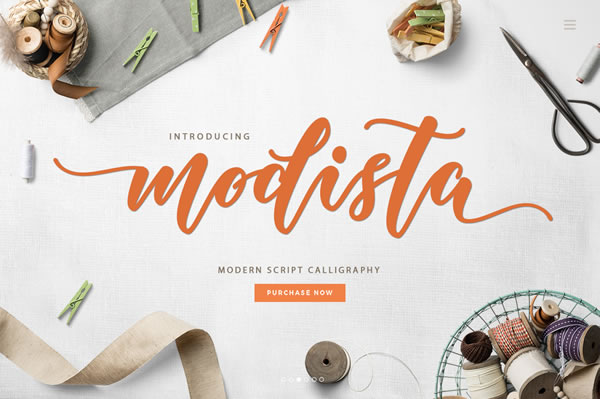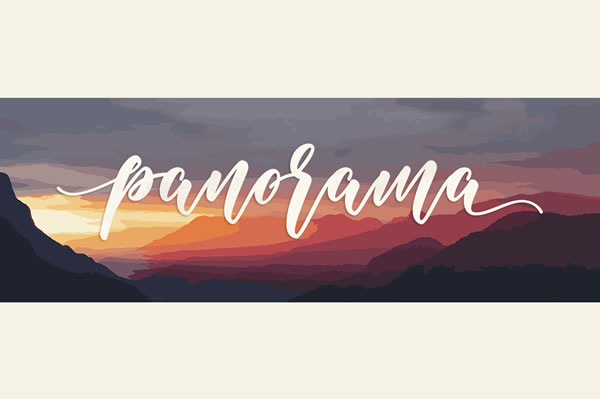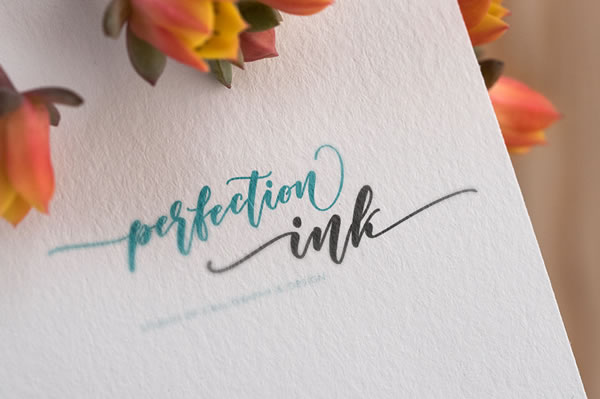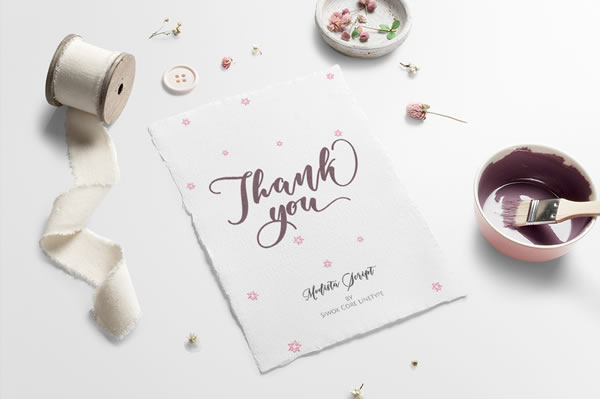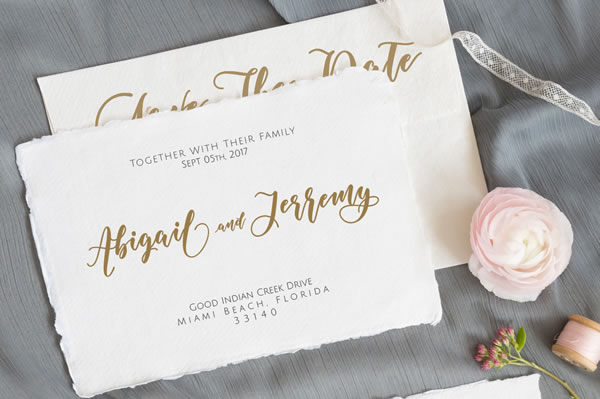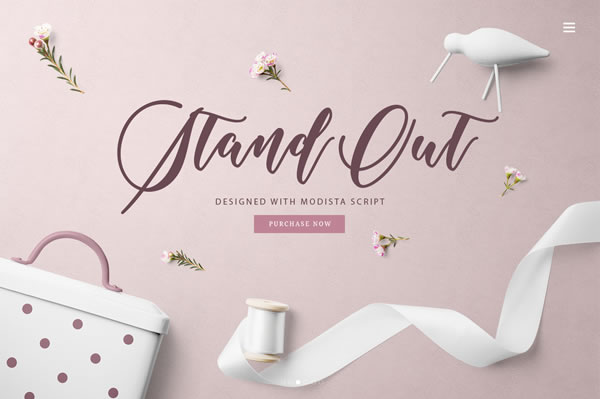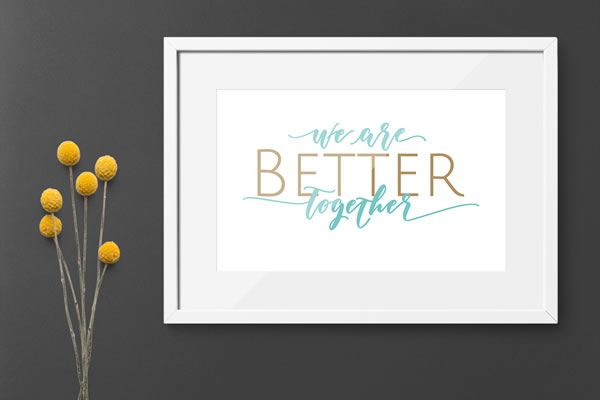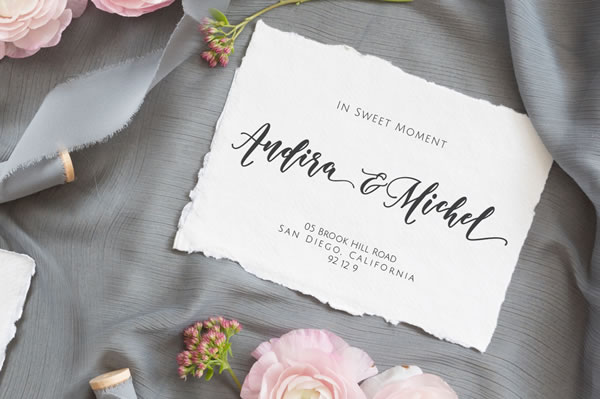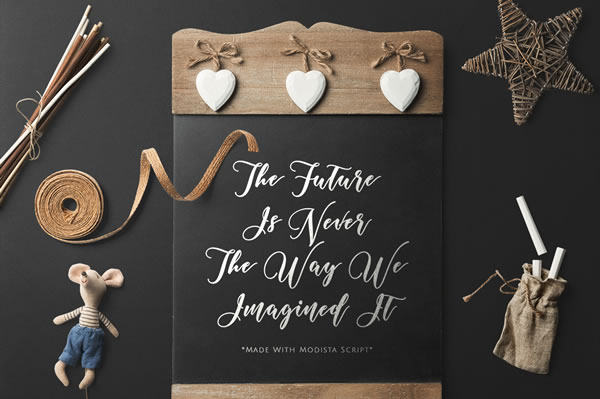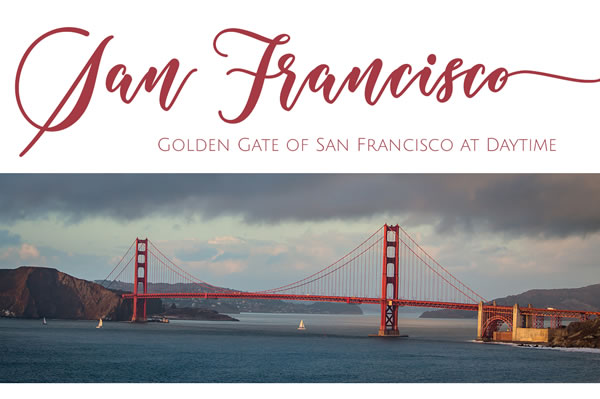
Modista Font
About Modista Font
Modista is a smooth, modern script font in a calligraphy style. Beautiful and striking, Modista is romantic and perfectly adaptable to a large number of designs.